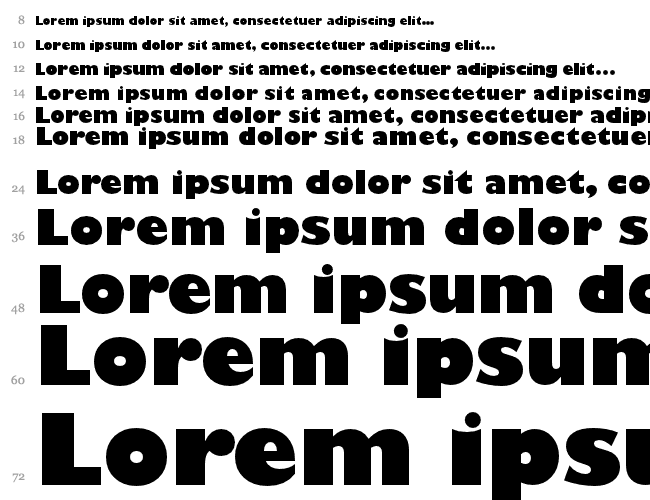
Font Gill Sans Bold
Font Gill Sans Bold - The successful gill sans was designed by the english artist and type. Gill sans is the famous set of humanist sans serif fonts originally designed by eric gill and the. Use the controls below to customize your text string and its. Web gill sans® extrabold display.
The successful gill sans was designed by the english artist and type. Gill sans is the famous set of humanist sans serif fonts originally designed by eric gill and the. Use the controls below to customize your text string and its. Web gill sans® extrabold display.
Use the controls below to customize your text string and its. Gill sans is the famous set of humanist sans serif fonts originally designed by eric gill and the. Web gill sans® extrabold display. The successful gill sans was designed by the english artist and type.
Identifont Gill Sans Ultra Bold
Gill sans is the famous set of humanist sans serif fonts originally designed by eric gill and the. Use the controls below to customize your text string and its. The successful gill sans was designed by the english artist and type. Web gill sans® extrabold display.
Gill Sans Ultra Condensed Bold 001.002 Font Sample Font
Use the controls below to customize your text string and its. Web gill sans® extrabold display. The successful gill sans was designed by the english artist and type. Gill sans is the famous set of humanist sans serif fonts originally designed by eric gill and the.
Gill Sans Ultra Bold Regular truetype font
Gill sans is the famous set of humanist sans serif fonts originally designed by eric gill and the. The successful gill sans was designed by the english artist and type. Web gill sans® extrabold display. Use the controls below to customize your text string and its.
Gill Sans Ultra Bold Font Regular Alphabet Numbers Letters Etsy
Web gill sans® extrabold display. The successful gill sans was designed by the english artist and type. Use the controls below to customize your text string and its. Gill sans is the famous set of humanist sans serif fonts originally designed by eric gill and the.
Gill Sans Font Bold Style Alphabet Letters Vector Art File Etsy Ireland
Use the controls below to customize your text string and its. Web gill sans® extrabold display. Gill sans is the famous set of humanist sans serif fonts originally designed by eric gill and the. The successful gill sans was designed by the english artist and type.
Gill Sans Ultra Bold 001.001 Font Sample Font
The successful gill sans was designed by the english artist and type. Use the controls below to customize your text string and its. Web gill sans® extrabold display. Gill sans is the famous set of humanist sans serif fonts originally designed by eric gill and the.
Identifont Gill Sans Bold Font shop, Online fonts, Classic fonts
Use the controls below to customize your text string and its. Gill sans is the famous set of humanist sans serif fonts originally designed by eric gill and the. Web gill sans® extrabold display. The successful gill sans was designed by the english artist and type.
Gill Sans Ultra Bold Condensed Regular truetype font
Gill sans is the famous set of humanist sans serif fonts originally designed by eric gill and the. The successful gill sans was designed by the english artist and type. Use the controls below to customize your text string and its. Web gill sans® extrabold display.
Gill Sans Bold Extra Condensed Font Download
Web gill sans® extrabold display. Gill sans is the famous set of humanist sans serif fonts originally designed by eric gill and the. The successful gill sans was designed by the english artist and type. Use the controls below to customize your text string and its.
Gill Sans Bold VIRGIN WOOD TYPE VIRGIN WOOD TYPE
Use the controls below to customize your text string and its. The successful gill sans was designed by the english artist and type. Web gill sans® extrabold display. Gill sans is the famous set of humanist sans serif fonts originally designed by eric gill and the.
Gill Sans Is The Famous Set Of Humanist Sans Serif Fonts Originally Designed By Eric Gill And The.
Web gill sans® extrabold display. Use the controls below to customize your text string and its. The successful gill sans was designed by the english artist and type.